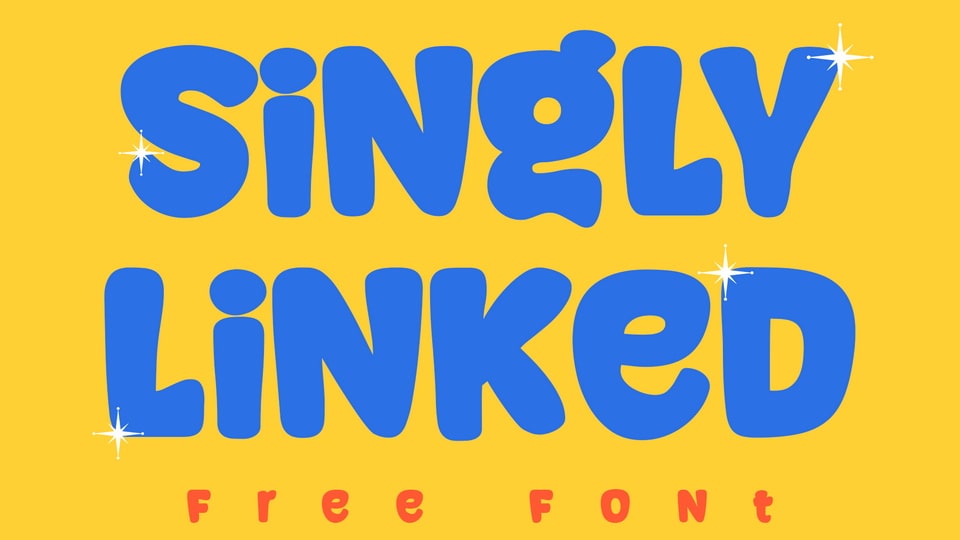
Download Singly Linked font, a chunky, comic, and cartoon display typeface. With its neat and joyful personality, Singly Linked font will enhance any project you wish to create!
Designer: Niskala Huruf